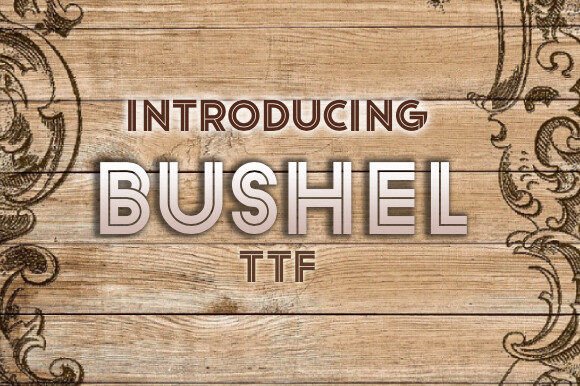
The Retro Charm of Bushel Font: A Designer’s Delight
I’ll never forget the time I was working on a vintage-themed poster for a client’s coffee shop. I had spent hours brainstorming ideas, sketching out rough drafts, and refining my design. But something was missing – the perfect font. That’s when I stumbled upon Bushel, a retro typeface that instantly elevated my design to the next level. In this article, I’ll share my love for Bushel, its features, and how to make the most of it in your designs.
An Honest Review of Bushel Font
What I Love About Bushel ✨
- ✅ Retro charm: Bushel has a unique, nostalgic feel that’s perfect for designs that require a vintage touch.
- ✅ Versatility: This font can be used on a wide range of projects, from posters and flyers to t-shirts, mugs, and stickers.
- ✅ Highly legible: Despite its retro vibe, Bushel is surprisingly easy to read, even at smaller font sizes.
- ✅ OpenType features: Bushel supports OpenType features, including glyphs and stylistic alternates, which can add an extra layer of creativity to your designs.
- ⚠️ Limited language support: Bushel may not support all languages, so be sure to check the font’s specifications before using it for multilingual projects.
- ⚠️ Not suitable for body text: While Bushel is legible, it’s not the best choice for long blocks of body text. It’s better suited for headings, titles, and short paragraphs.
The Story Behind Bushel Font
Bushel was designed by a team of creatives who wanted to create a font that captured the essence of retro charm. Inspired by vintage posters, advertisements, and signage, Bushel is a modern take on classic typography. The font’s unique blend of nostalgia and sophistication makes it perfect for designers looking to add a touch of whimsy to their projects.
| Font Name | Bushel Font |
| Author | vladimirnikolic |
| What is Bushel font best used for? | Bushel is best used for designs that require a retro or vintage touch, such as posters, flyers, t-shirts, and stickers. |
| Does Bushel support OpenType features? | Yes, Bushel supports OpenType features, including glyphs and stylistic alternates. |